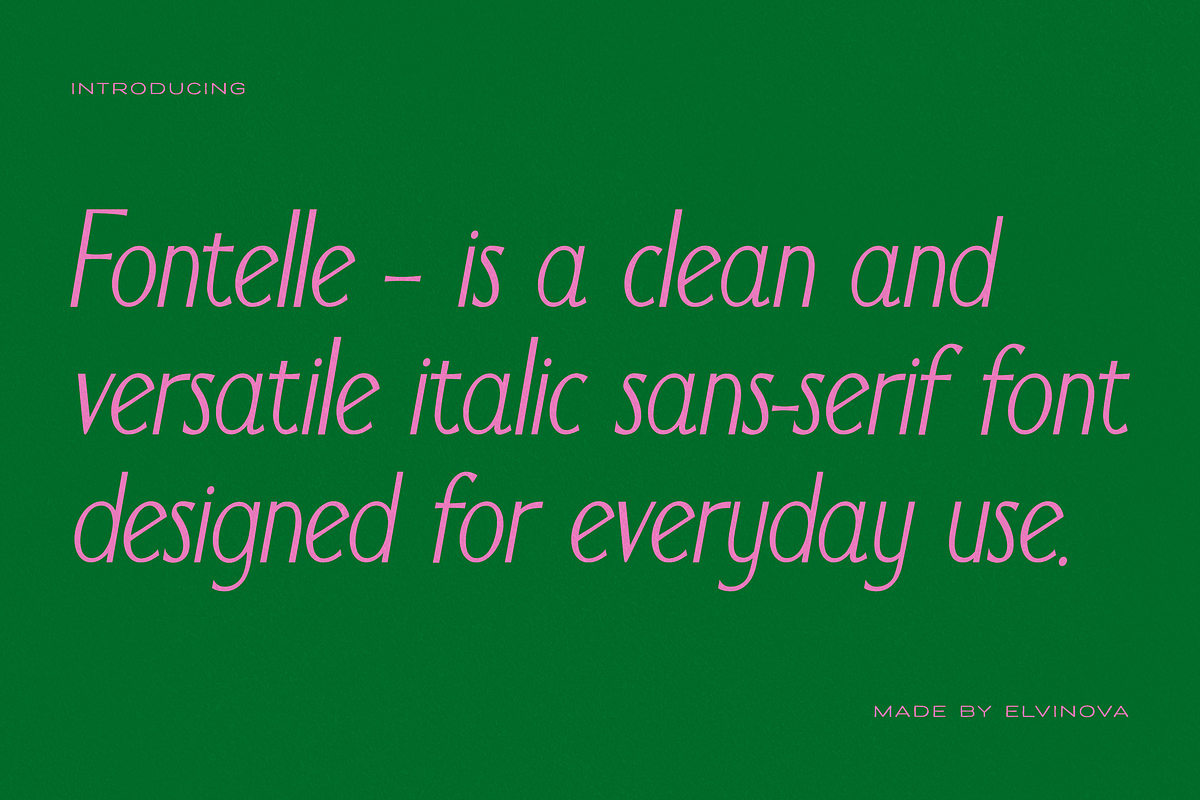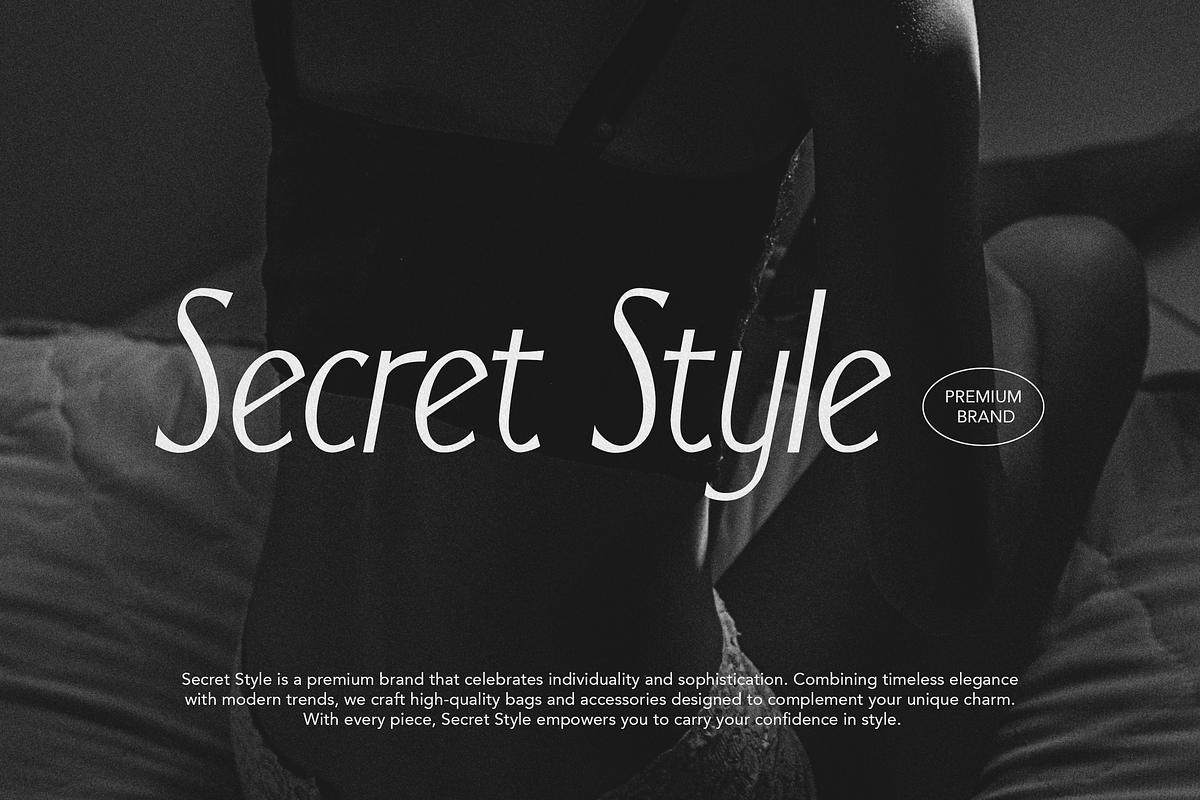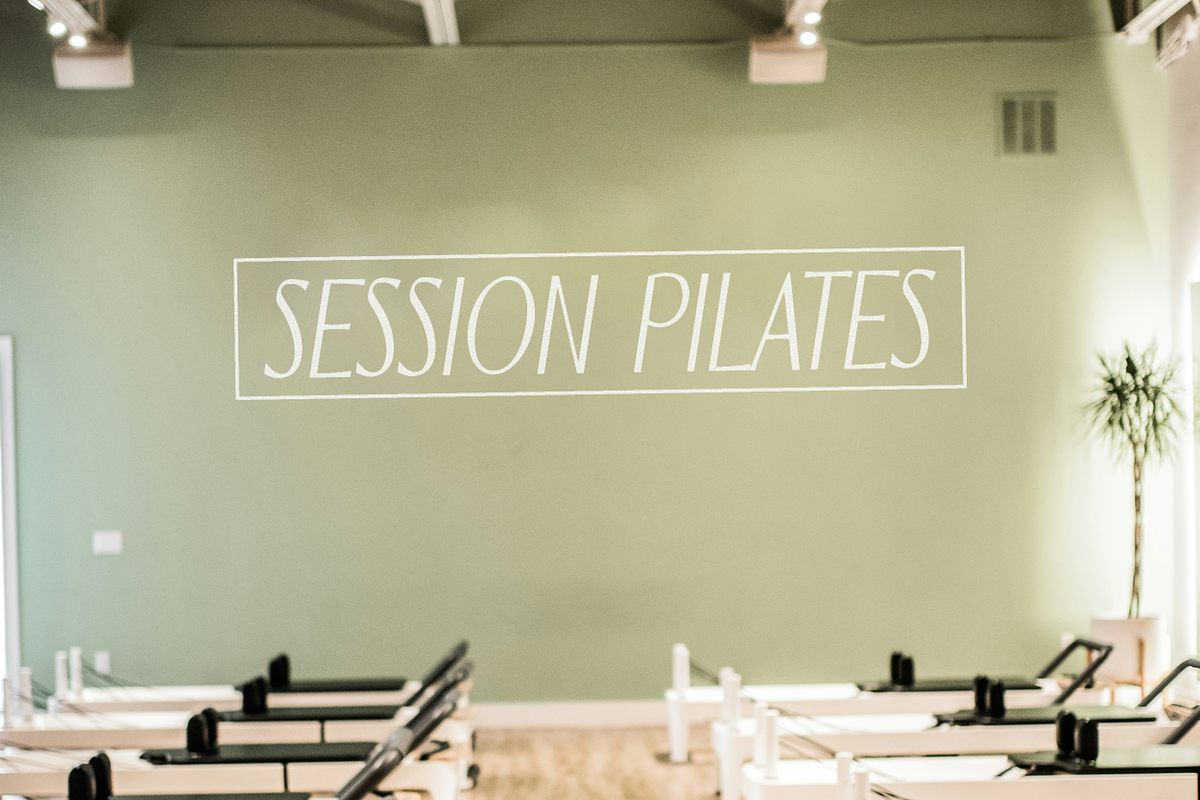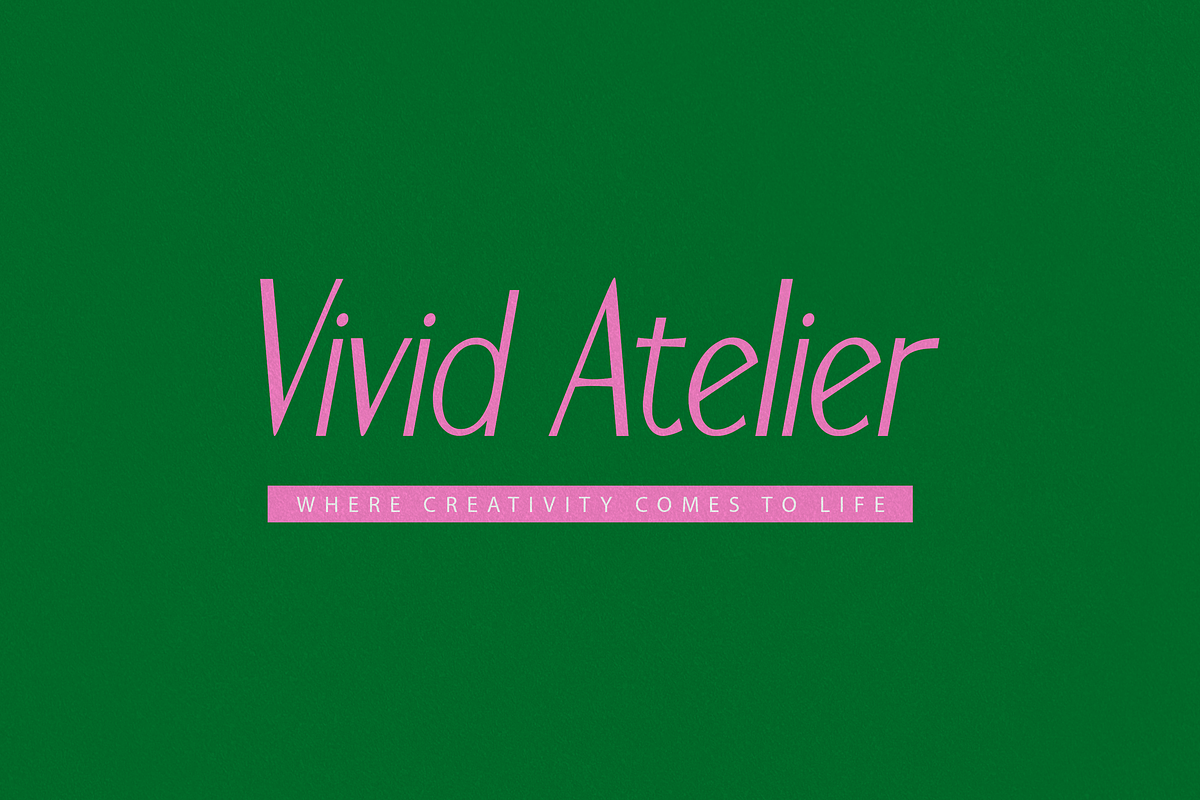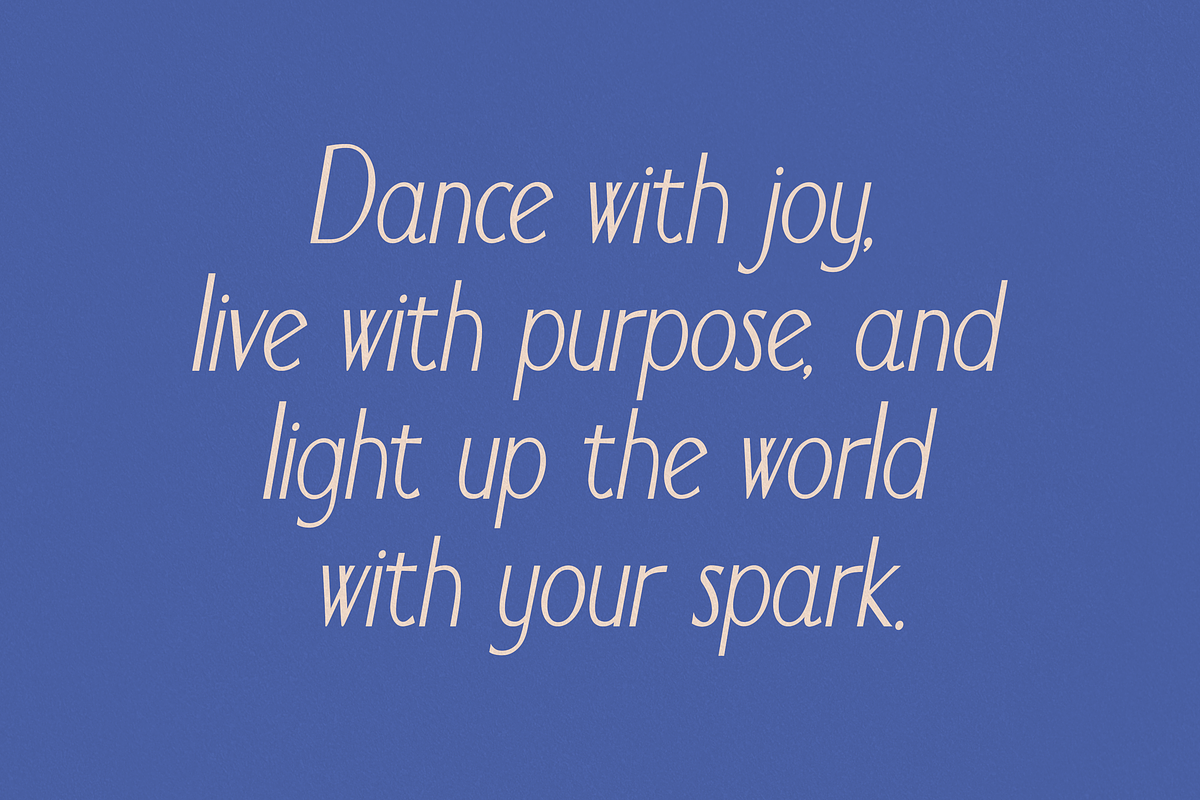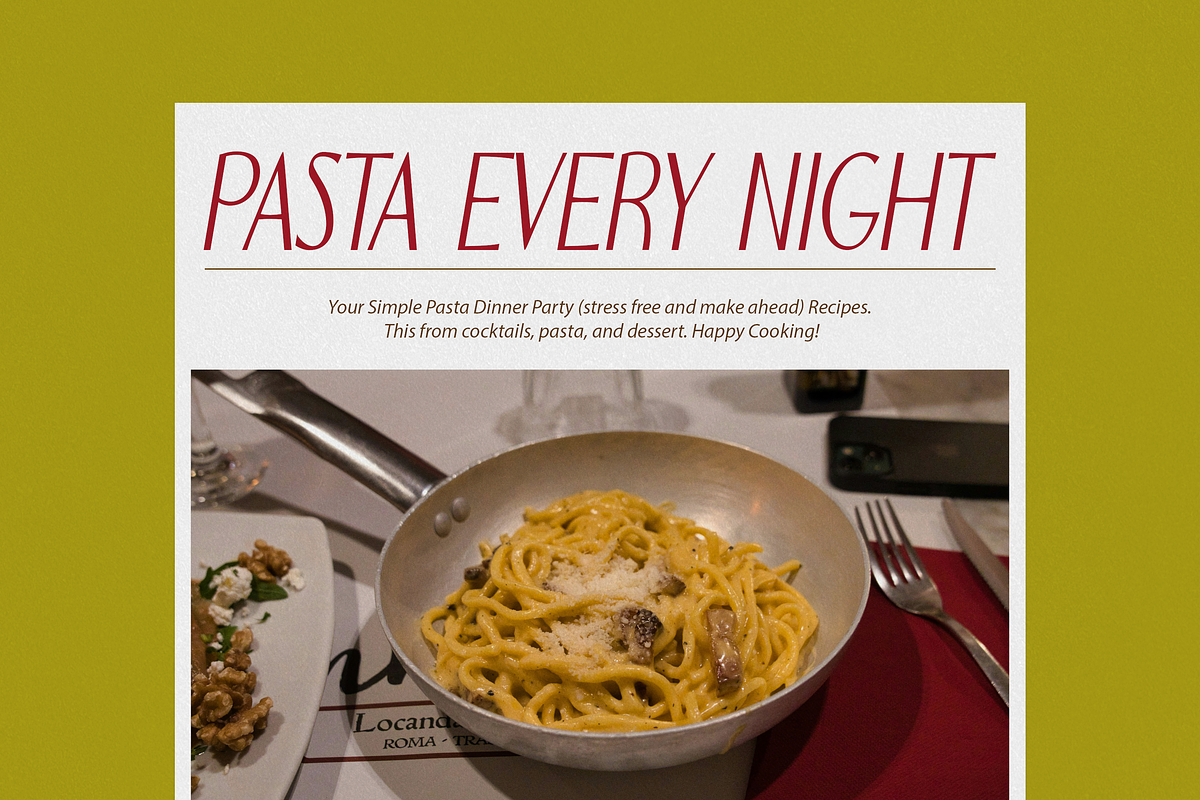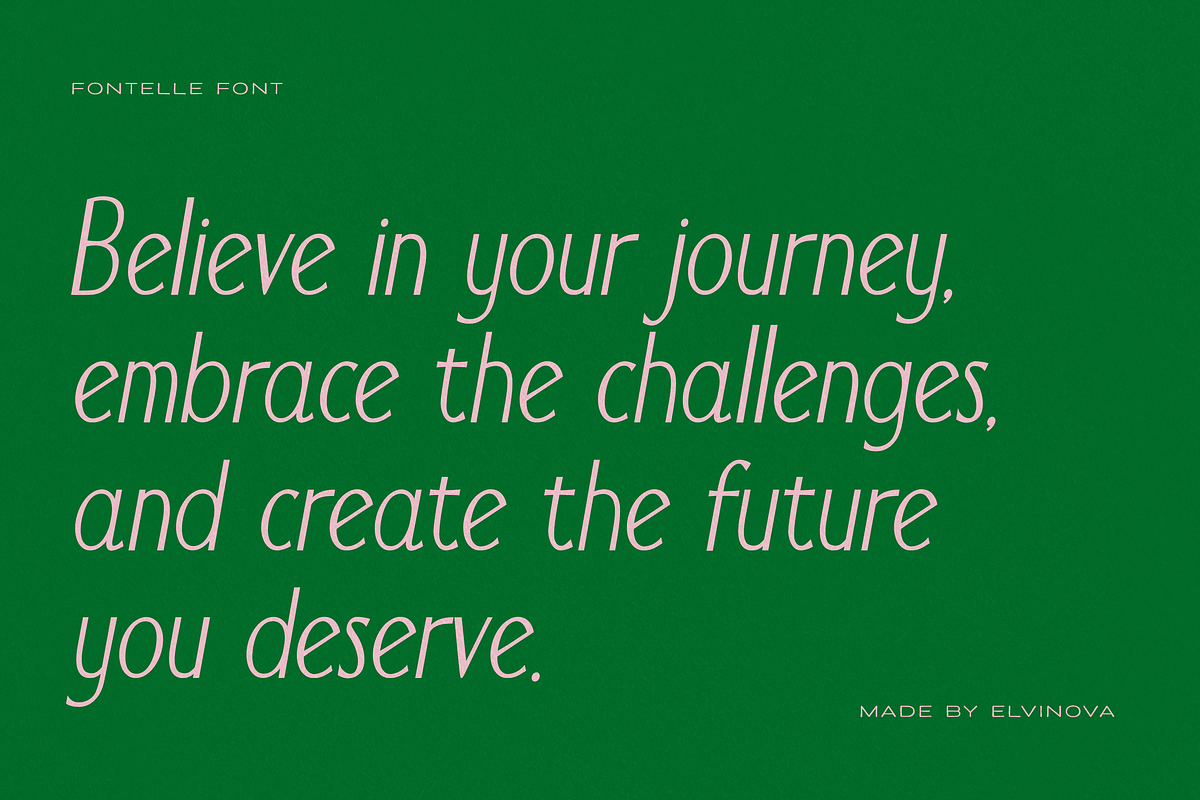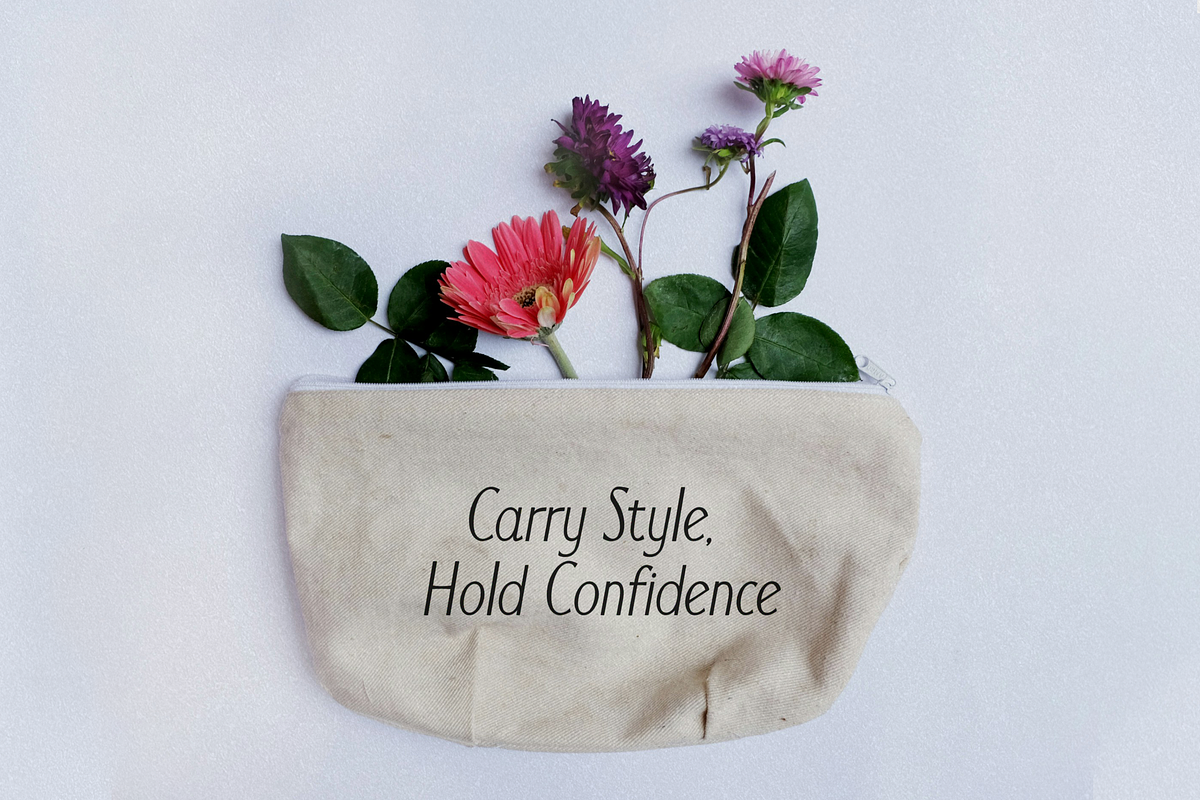
Fontelle Italic Sans
Fontelle is a modern sans-serif font with an italic style. Perfect for everyday use, it’s clean, versatile, and adds a simple touch of elegance to any project.